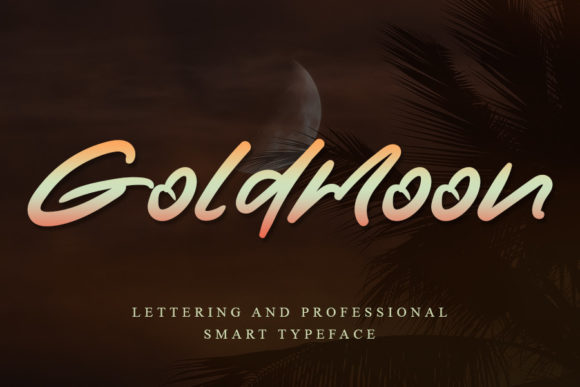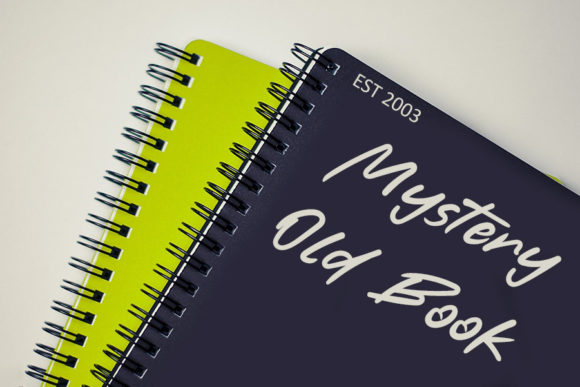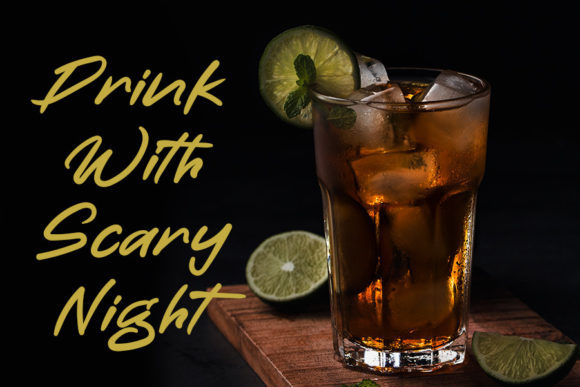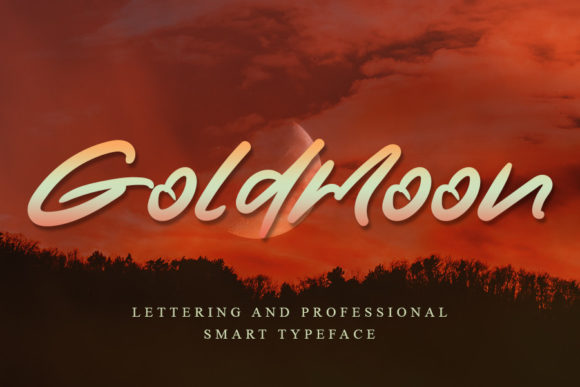
Introducing Goldmoon Font: The Epitome of Elegance and Charm
In the realm of typography, few fonts manage to convey the perfect blend of charm and elegance. Goldmoon Font is one such exceptional typeface that has captured the hearts of designers and crafters alike. With its unique, handwritten aesthetic, Goldmoon feels equally charming and elegant, making it an ideal choice for a wide range of design projects.
The Versatility of Goldmoon Font
One of the standout features of Goldmoon Font is its incredible versatility. Whether you’re working on wedding invitations, thank you cards, quotes, greeting cards, logos, or business cards, this font looks stunning and adds a touch of sophistication to your designs. Its elegant and flowing script makes it perfect for projects that require a personal, handwritten feel.
Design Applications of Goldmoon Font
Goldmoon Font’s applications are vast and varied. Here are some of the most popular uses of this beautiful font:
- Wedding Invitations: Add a touch of romance and elegance to your wedding invitations with Goldmoon Font. Its beautiful script and flowing letters make it perfect for formal and informal wedding announcements.
- Thank You Cards: Express your gratitude in style with Goldmoon Font. This font is ideal for creating personalized thank you cards for special occasions.
- Quotes and Greeting Cards: Goldmoon Font is perfect for highlighting inspirational quotes and creating beautiful greeting cards for various occasions.
- Logos and Branding: Use Goldmoon Font to create stunning logos and branding materials that exude elegance and sophistication.
- Business Cards: Stand out from the crowd with Goldmoon Font on your business cards. This font adds a touch of professionalism and style to your business cards.
Why Designers and Crafters Love Goldmoon Font
Designers and crafters love Goldmoon Font for several reasons:
- Elegant and Charming: Goldmoon Font has a unique, elegant, and charming aesthetic that sets it apart from other fonts.
- Easy to Read: Despite its elegant script, Goldmoon Font is easy to read, making it perfect for body text and captions.
- Highly Versatile: Goldmoon Font can be used for a wide range of design projects, from formal to informal.
- Unique and Creative: Goldmoon Font adds a touch of creativity and uniqueness to your designs, setting them apart from others.
Tips for Using Goldmoon Font Effectively
Here are some tips for using Goldmoon Font effectively in your designs:
- Pair it with Simple Fonts: Pair Goldmoon Font with simple fonts to create a beautiful contrast and add visual interest to your designs.
- Use it for Headings and Titles: Use Goldmoon Font for headings and titles to add a touch of elegance and sophistication.
- Experiment with Colors: Experiment with different colors to find the perfect match for your design and Goldmoon Font.
- Pay Attention to Spacing: Pay attention to spacing and kerning to ensure that your text is easy to read and visually appealing.
Goldmoon Font is a beautiful and elegant typeface that is perfect for designers and crafters looking to add a touch of sophistication and charm to their designs. With its versatility, unique aesthetic, and ease of use, Goldmoon Font is an excellent choice for a wide range of design projects. Whether you’re working on wedding invitations, logos, or business cards, Goldmoon Font is sure to impress.